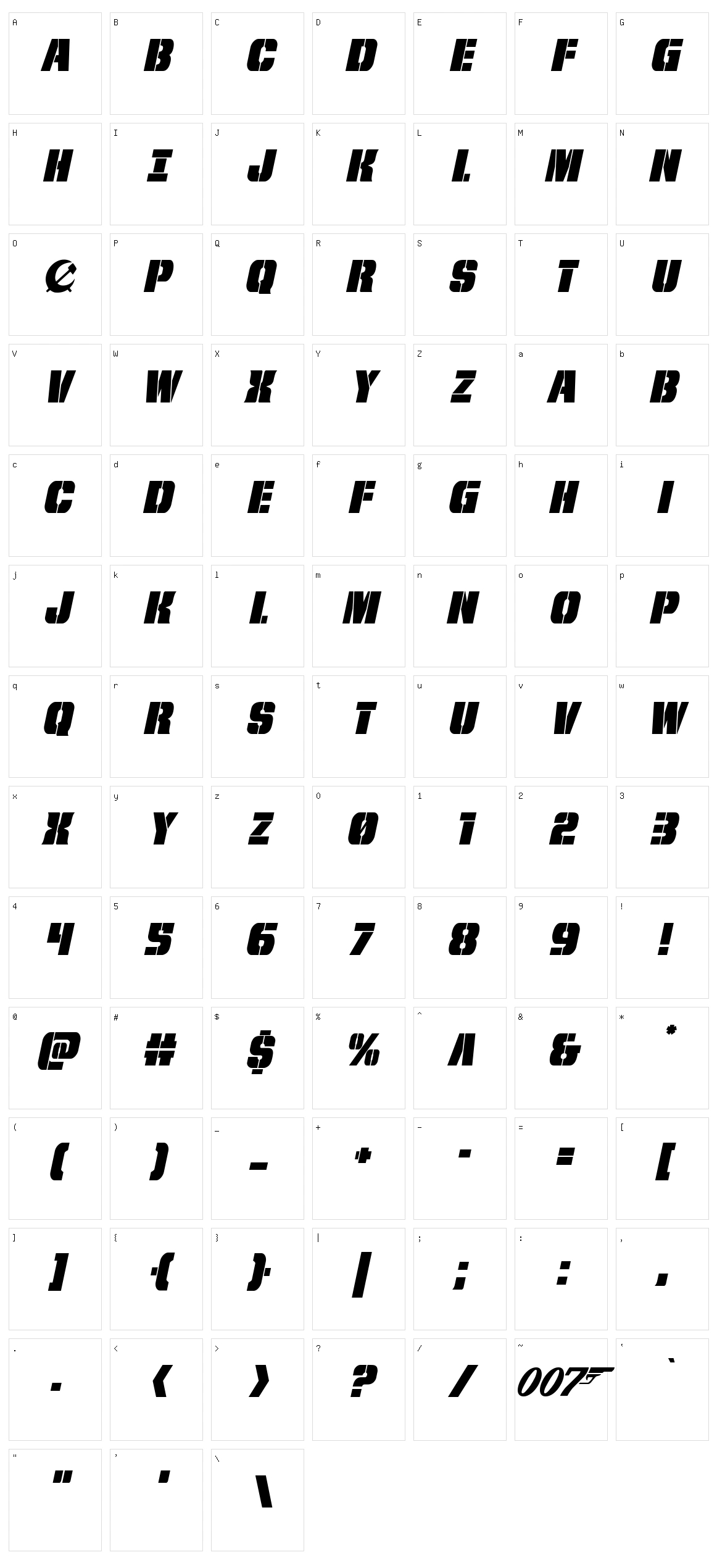
The free font From Bond With Love is carefully designed by Iconian Fonts, showcasing a thoughtful balance of creativity and usability and falls under the Stencil font style. When you download the ZIP file, it contains only 192.61 KB of font files, making it lightweight and quick to download. Please review the license details below to understand permitted usage and distribution rights. If license information is not available, we recommend using this font for personal projects only or contacting the author directly for commercial usage permissions.
This font comes with the following 11 versions: Regular, Italic, Expanded, Expanded Italic, Condensed, Condensed Italic, Outline, Outline Italic, 3D, 3D Italic and Leftalic.